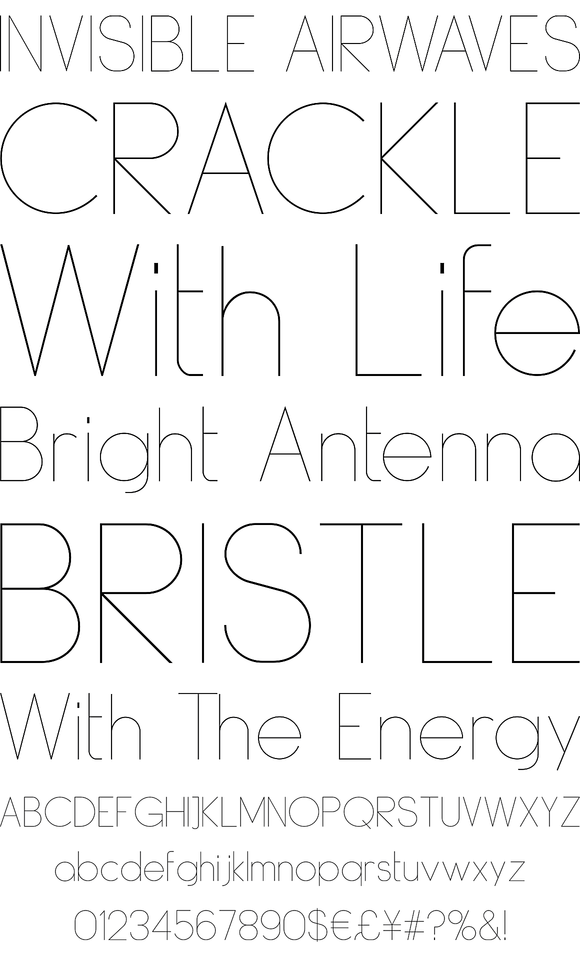
DyeLine
A modern geometric typeface influenced by architectural reproduction drawings such as blueprints and dyelines. The concept was to create a font that displays a simple elegance at large scale and would also be able to produce great legibility for body text. Details include 5 weights, a complete character set, manually edited kerning and Euro symbol.